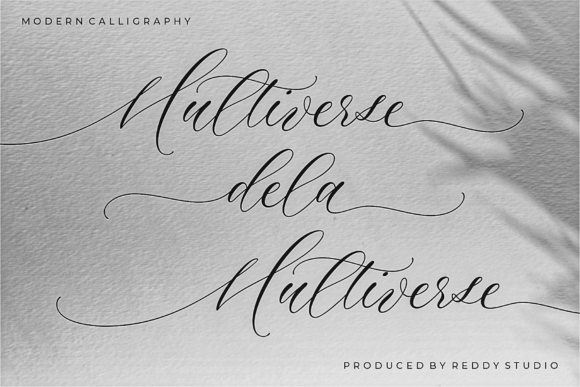
Dive into the enchanting world of Multiverse, a captivating and unique handwritten font that will mesmerize you with its authentic and dynamic hand-drawn strokes. Experience the beauty of natural writing brought to life, where each letter dances and flows, evoking a sense of genuine artistry and charm. Let your creativity soar as you explore the endless possibilities that await you with Multiverse.
Unleash your inner artist and let your imagination run wild as you transform your designs into captivating masterpieces. Multiverse is the perfect companion for personal branding, wedding invitations, social media posts, greeting cards, posters, logos, and so much more. Its versatility knows no bounds, making it a true gem for designers, bloggers, and creative entrepreneurs alike.
With Multiverse, you'll discover a font that effortlessly captures the essence of elegance and authenticity. Its intricate ligatures and swashes add a touch of sophistication, while its international language character support ensures that your messages can reach a global audience. Whether you're crafting heartfelt letters, designing stunning logos, or creating eye-catching social media graphics, Multiverse is your trusted ally, ready to elevate your creations to new heights.
Embrace the magic of Multiverse today and embark on a creative journey like no other. Let your imagination take center stage as you witness the transformation of your designs into captivating works of art. With Multiverse by your side, you'll discover a font that's not just versatile but an extension of your creative soul. Dive into the world of Multiverse and unlock a universe of creative possibilities.